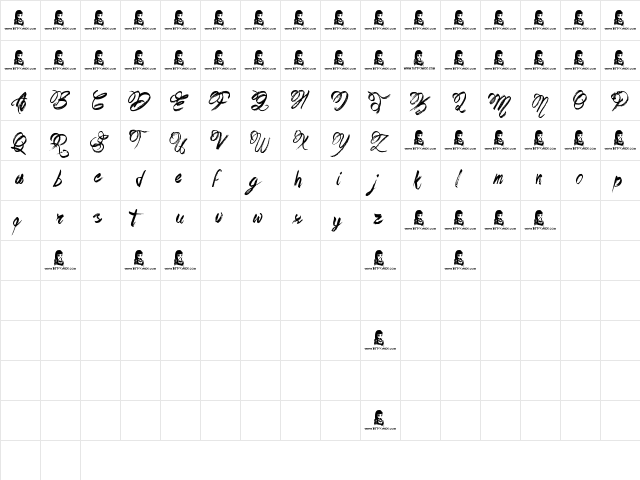
Art Brewery Regular Font Preview
Art Brewery Regular
Design Context for Art Brewery Typeface
Art Brewery is a composed and adaptable typeface that performs quietly and consistently across a wide range of design contexts.